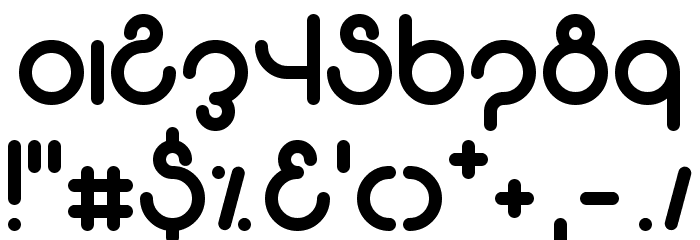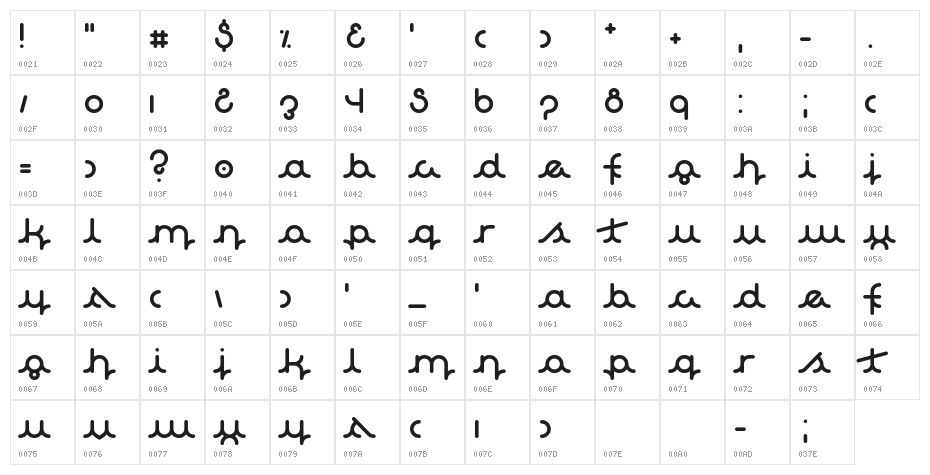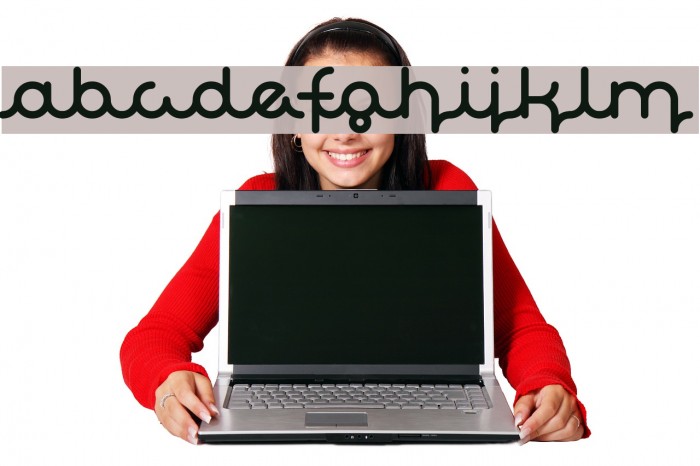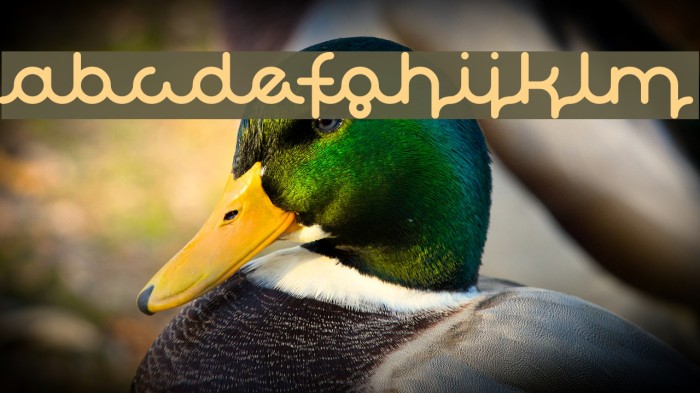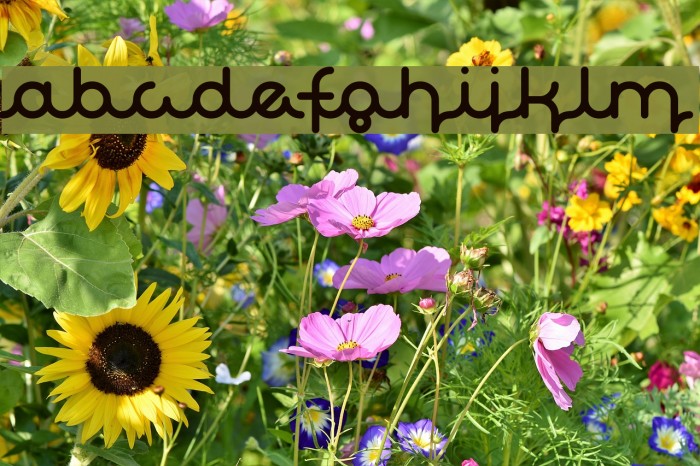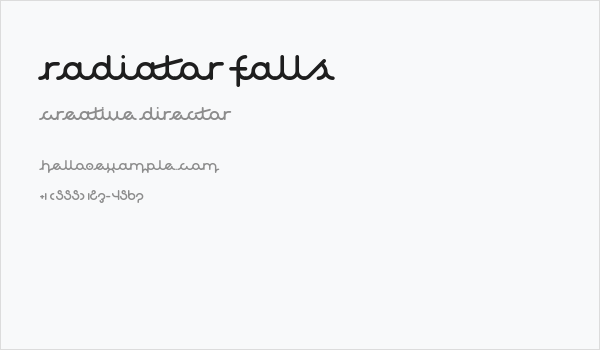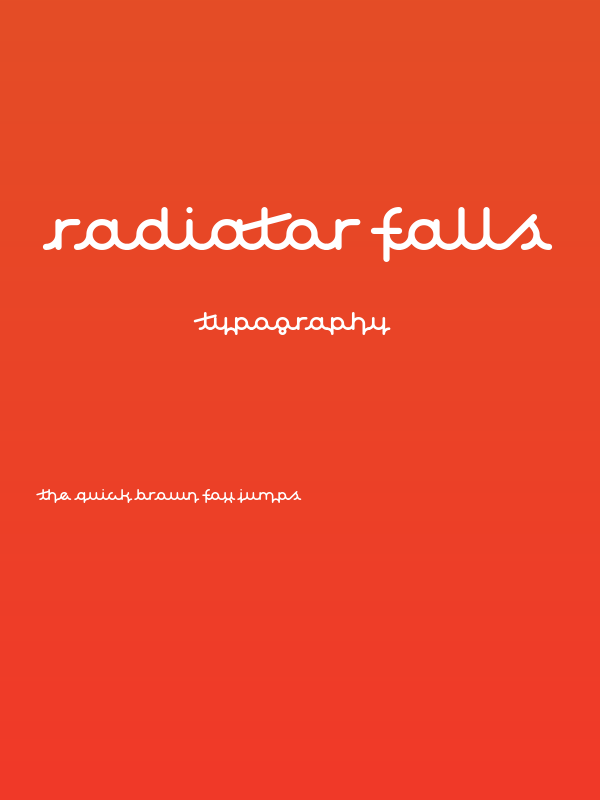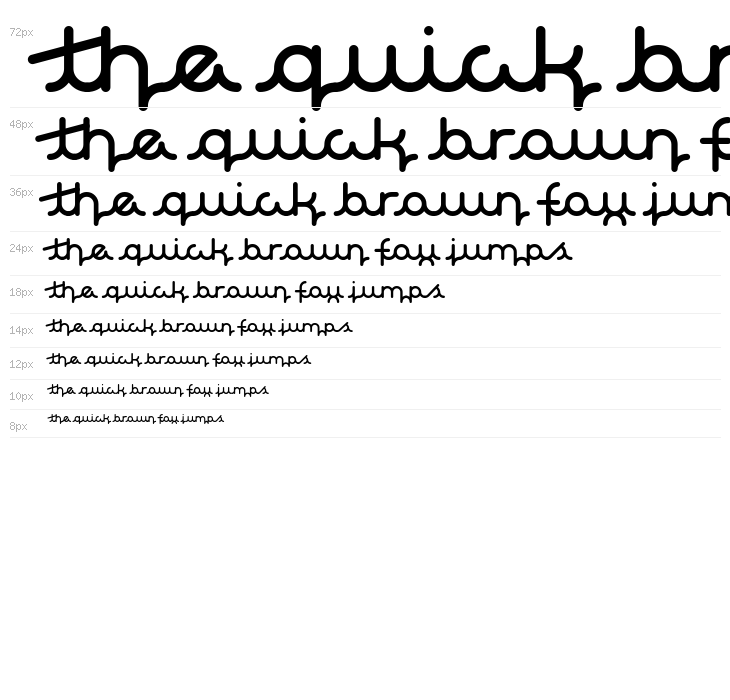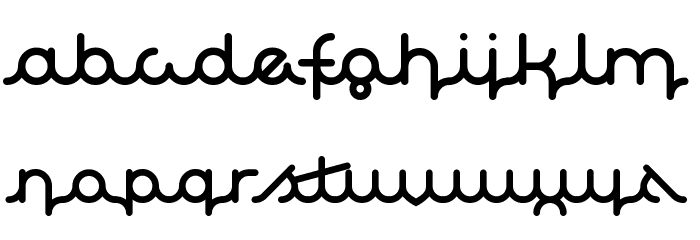
Radiator Falls Font
Radiator Falls Description
This font features a playful and whimsical design with a unique, flowing script style. The characters are interconnected with a continuous line, creating a sense of movement and fluidity. The rounded edges and smooth curves give it a friendly and approachable appearance. The lowercase letters have a consistent height, while the uppercase letters maintain a similar width, ensuring uniformity across the text. The numbers and special characters follow the same design principles, with rounded shapes and smooth transitions. This font is ideal for projects that require a fun and informal touch.
Overall StylePlayful
Use CaseLogos, Posters, Creative projects
Proposed ProjectsIdeal for children's books, playful branding, greeting cards, and creative posters.